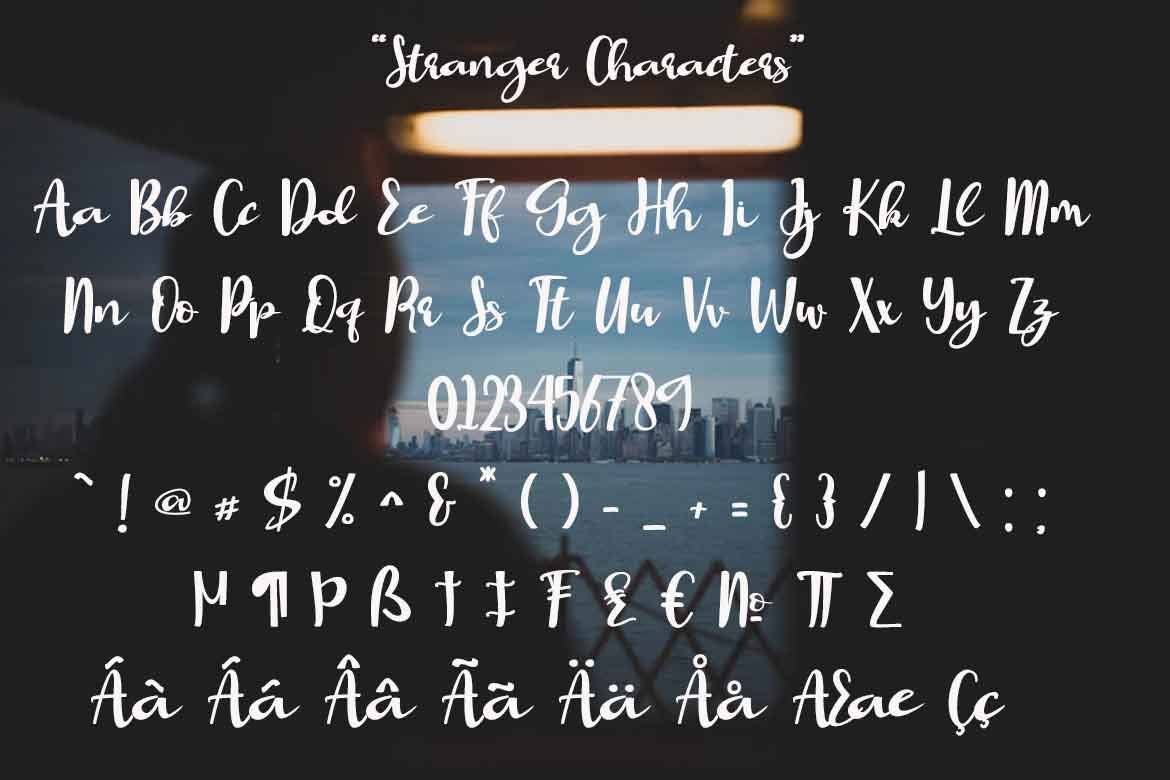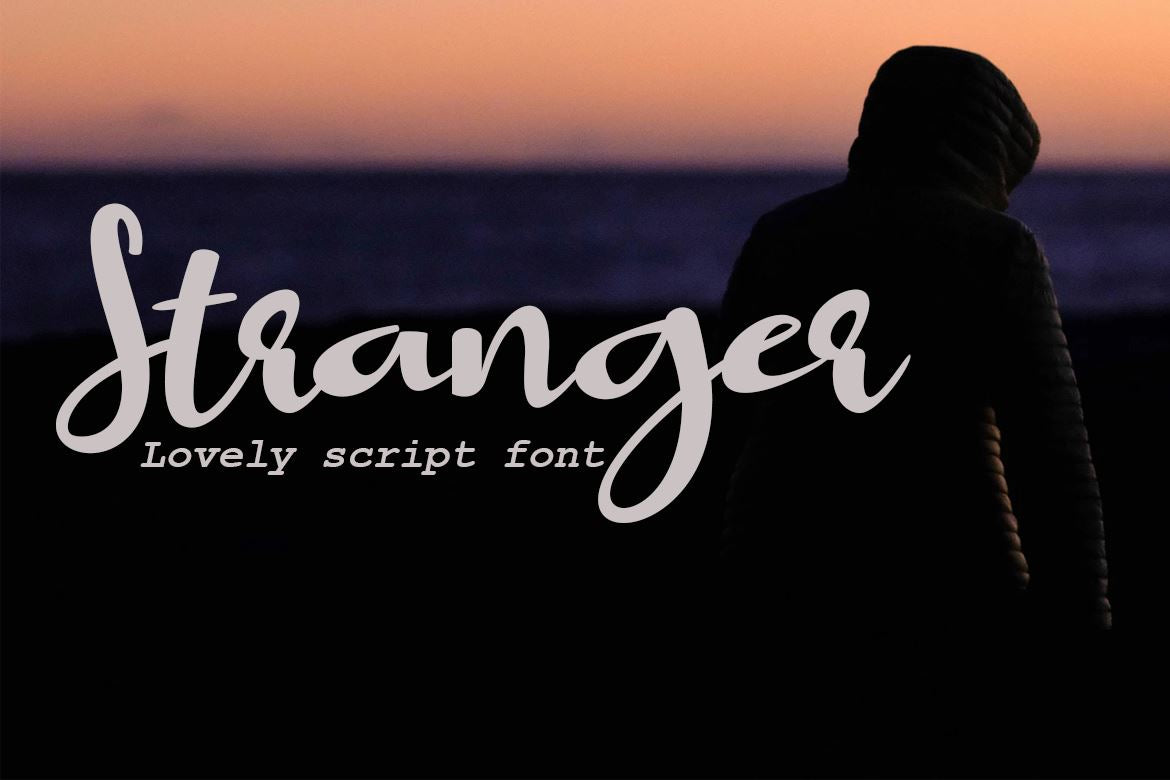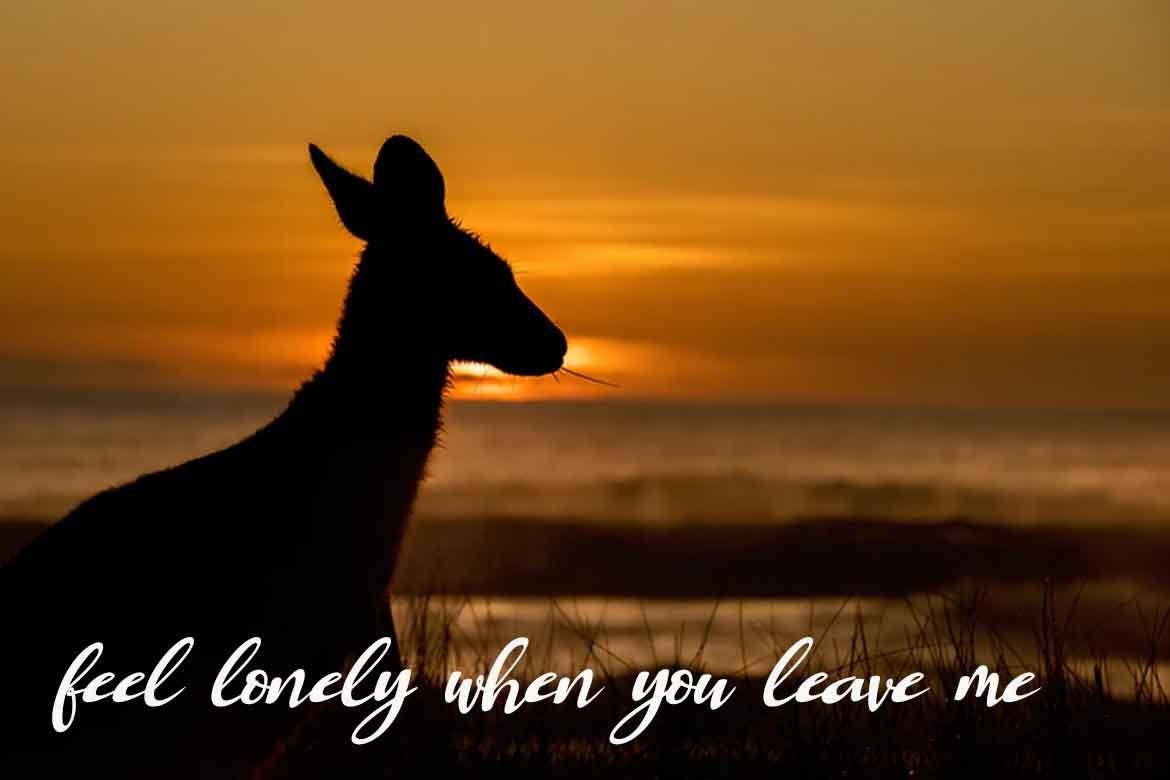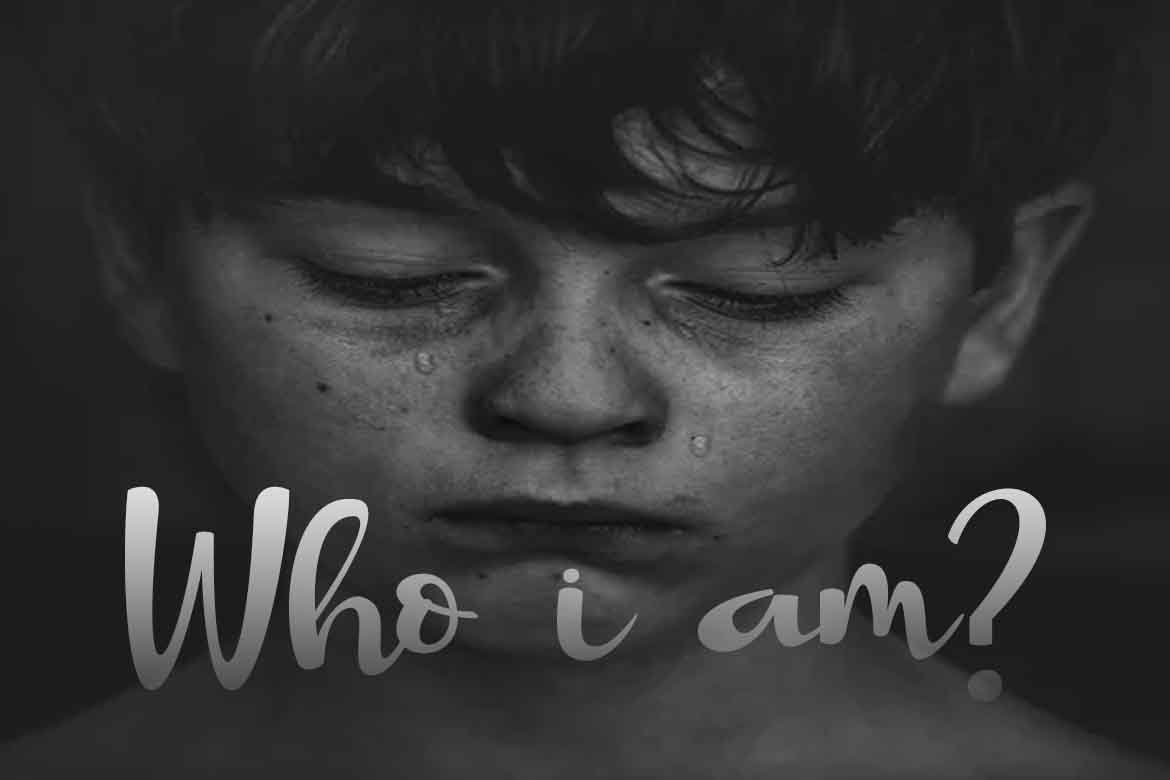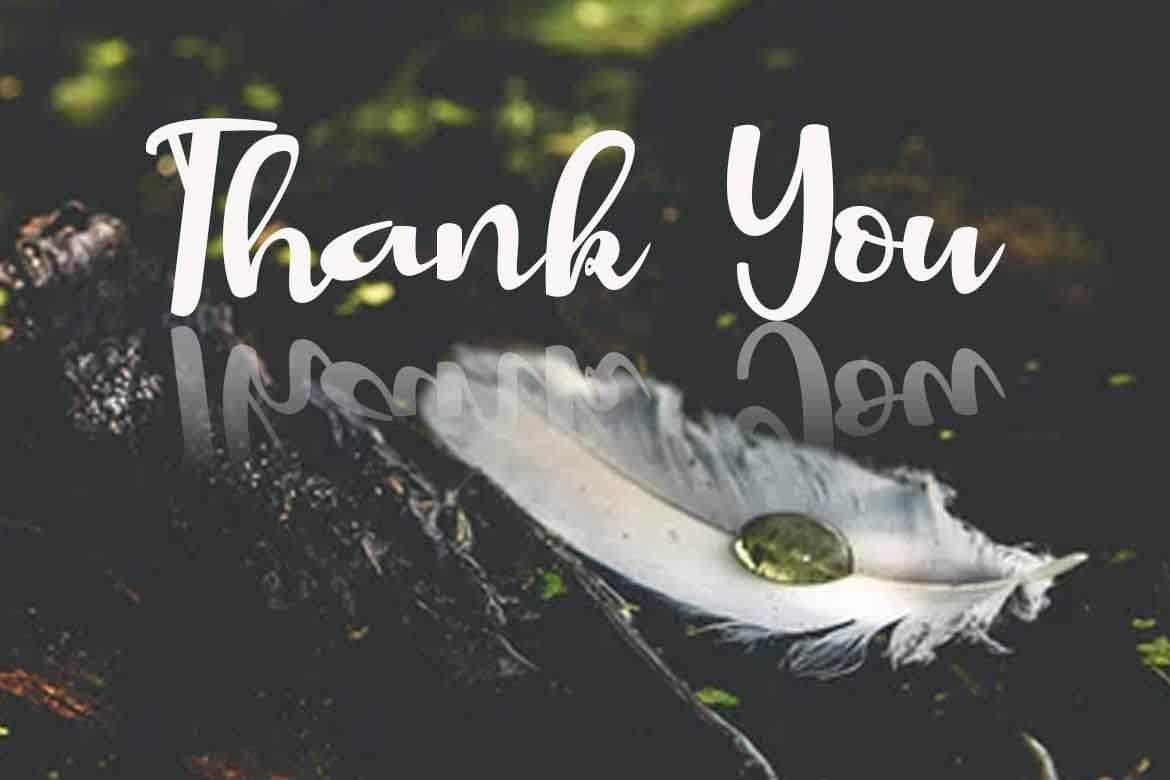
Stranger
About Stranger
Hello..thanks for visting my shop! Stranger is a flowing handwritten font, described by an elegant touch, perfect for your favorite projects. Fall in love with its incredibly distinct and timeless style and use it to create spectacular designs! Files Include : – Stranger OTF – Stranger TTF – WOFF I hope you love with my font…Thanks!